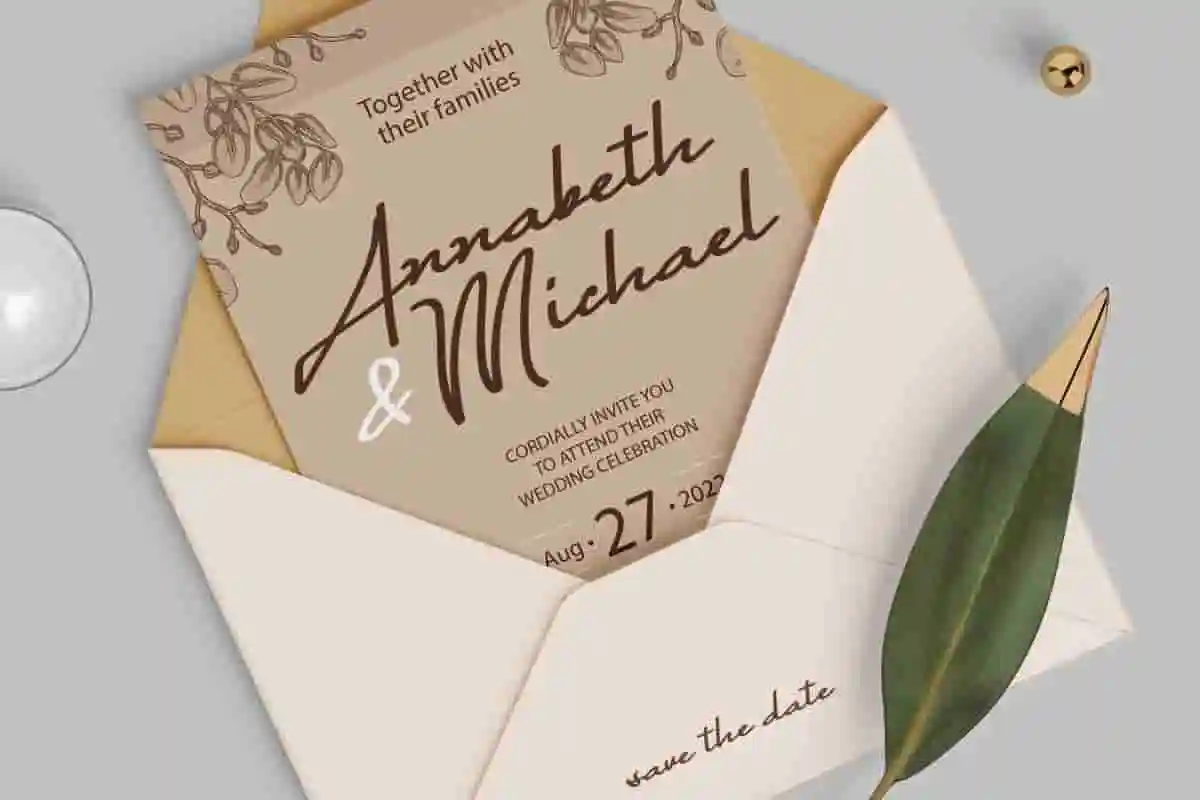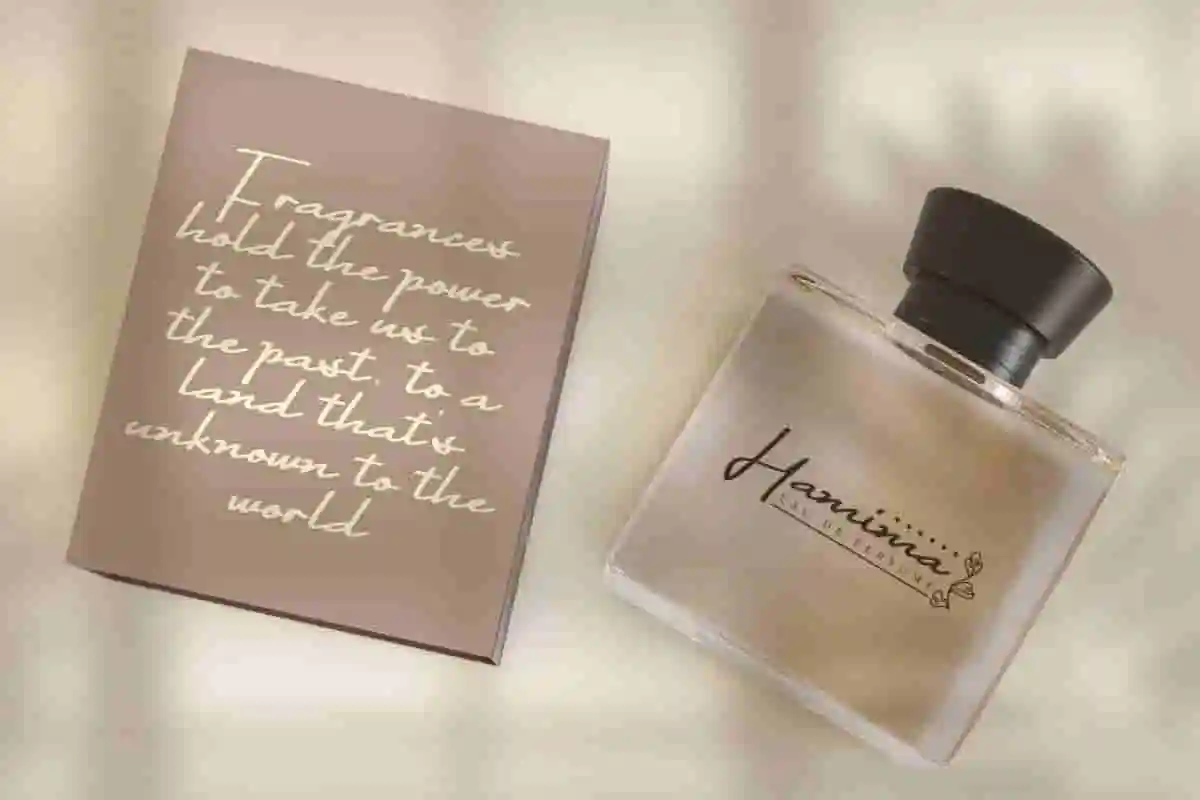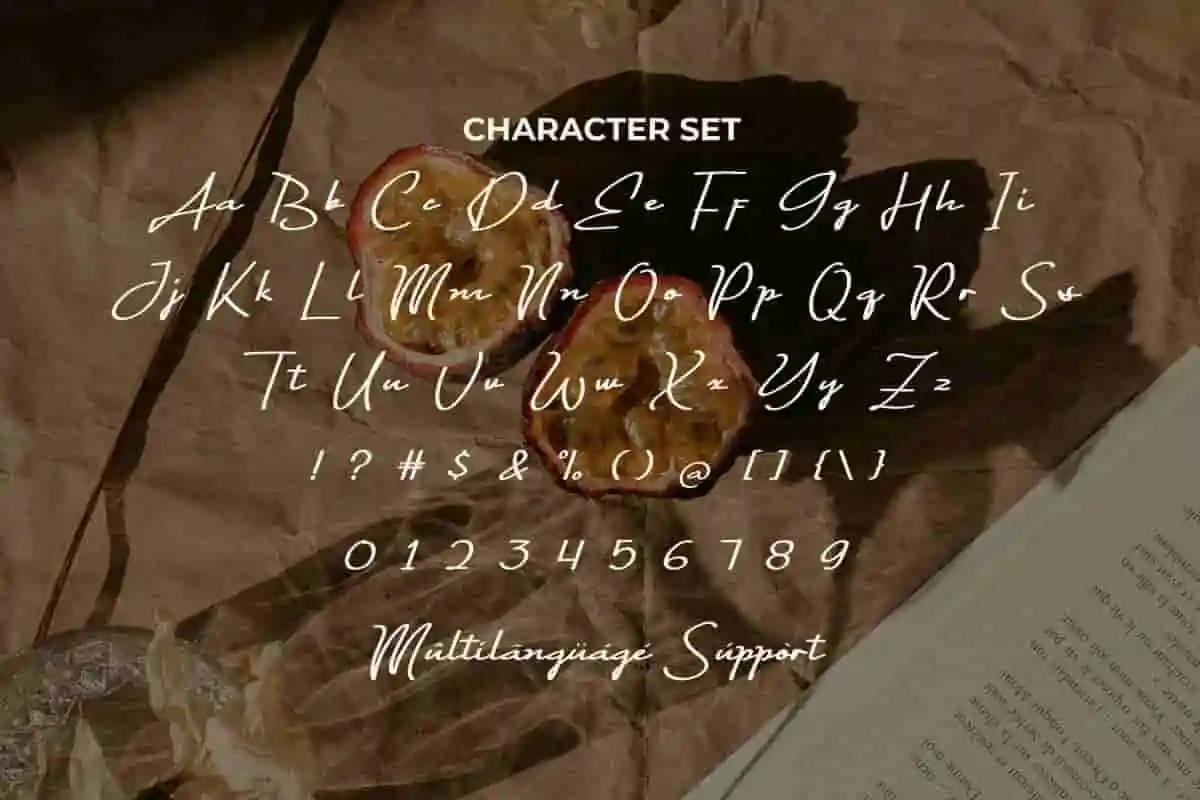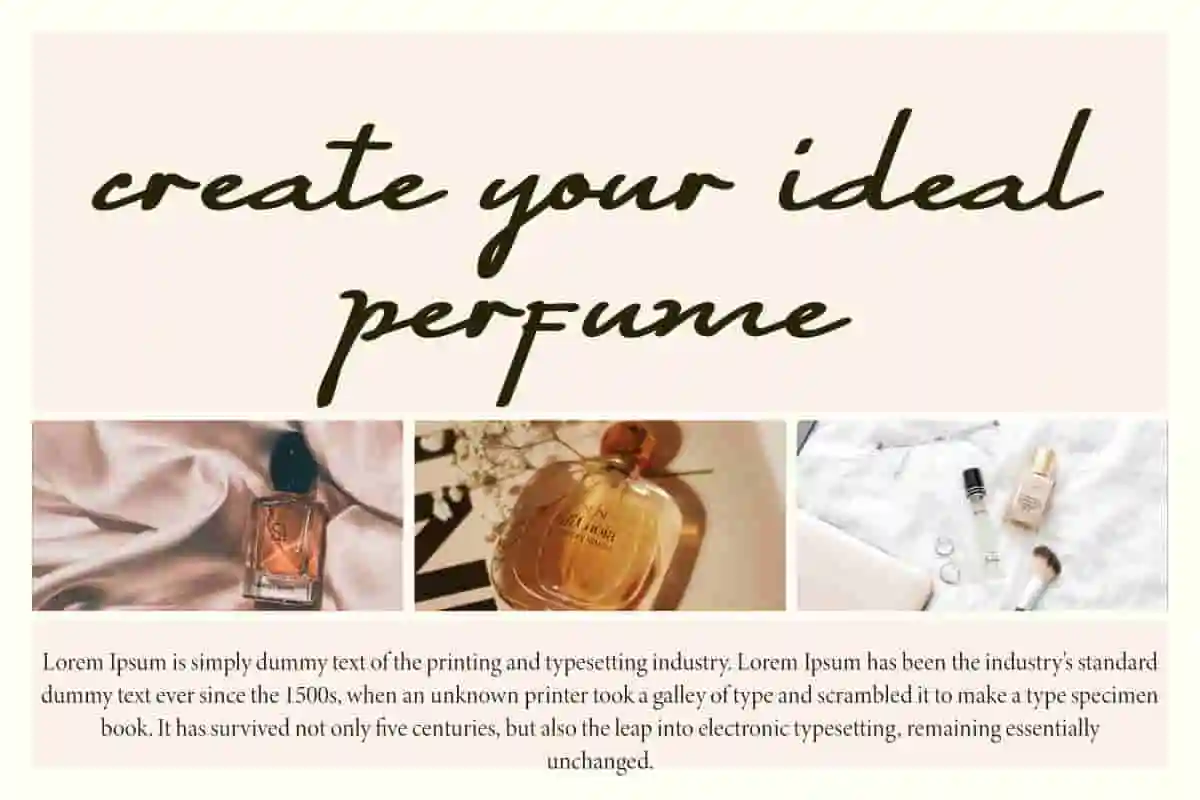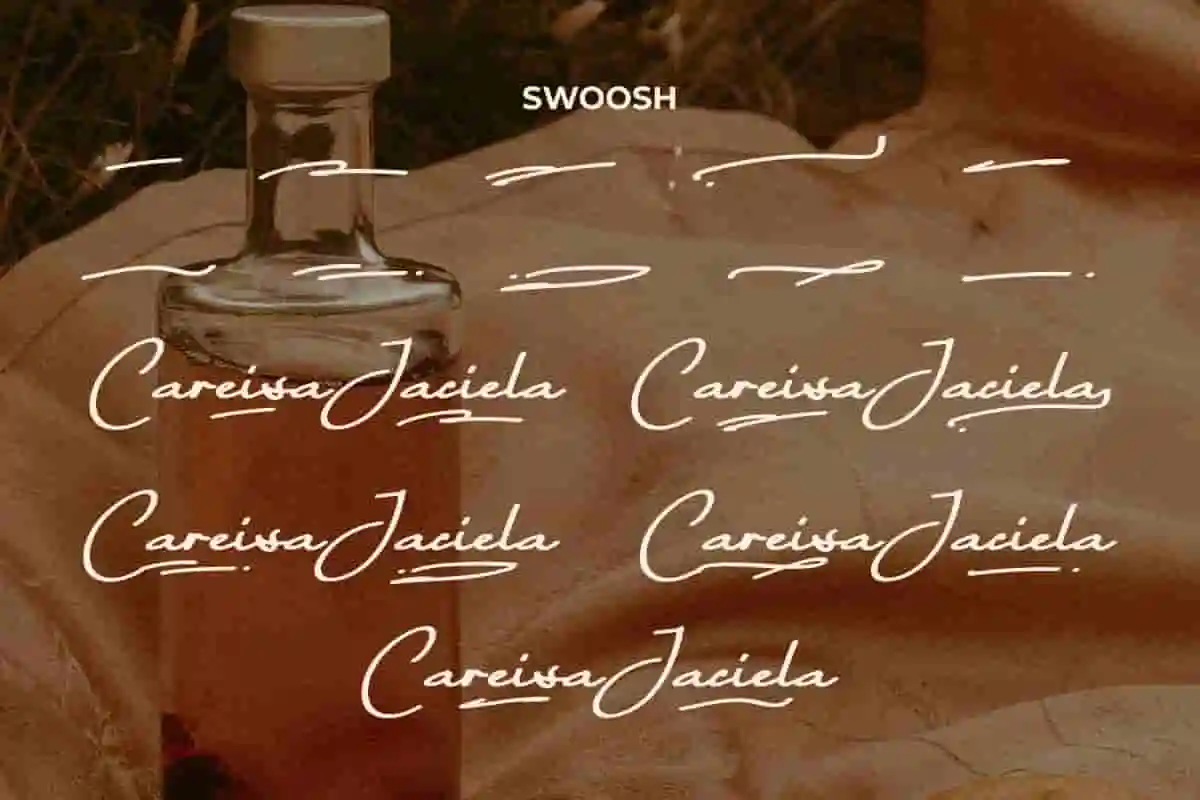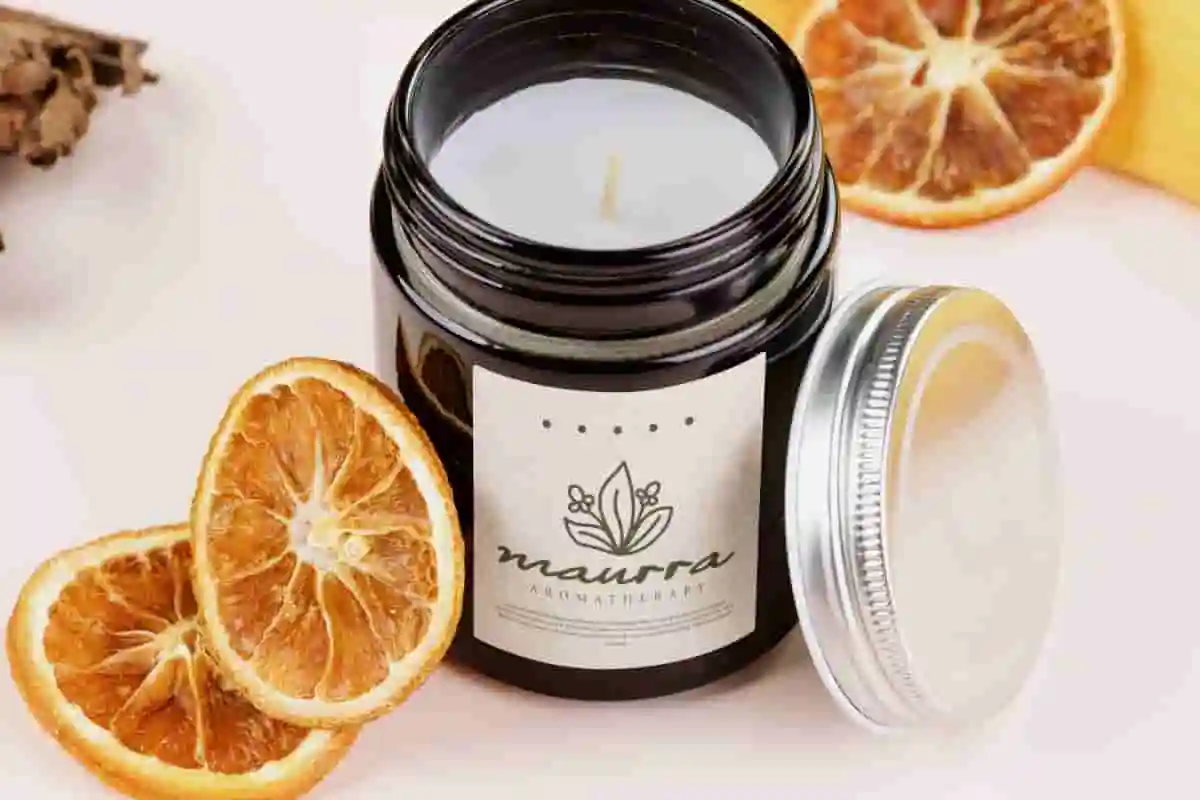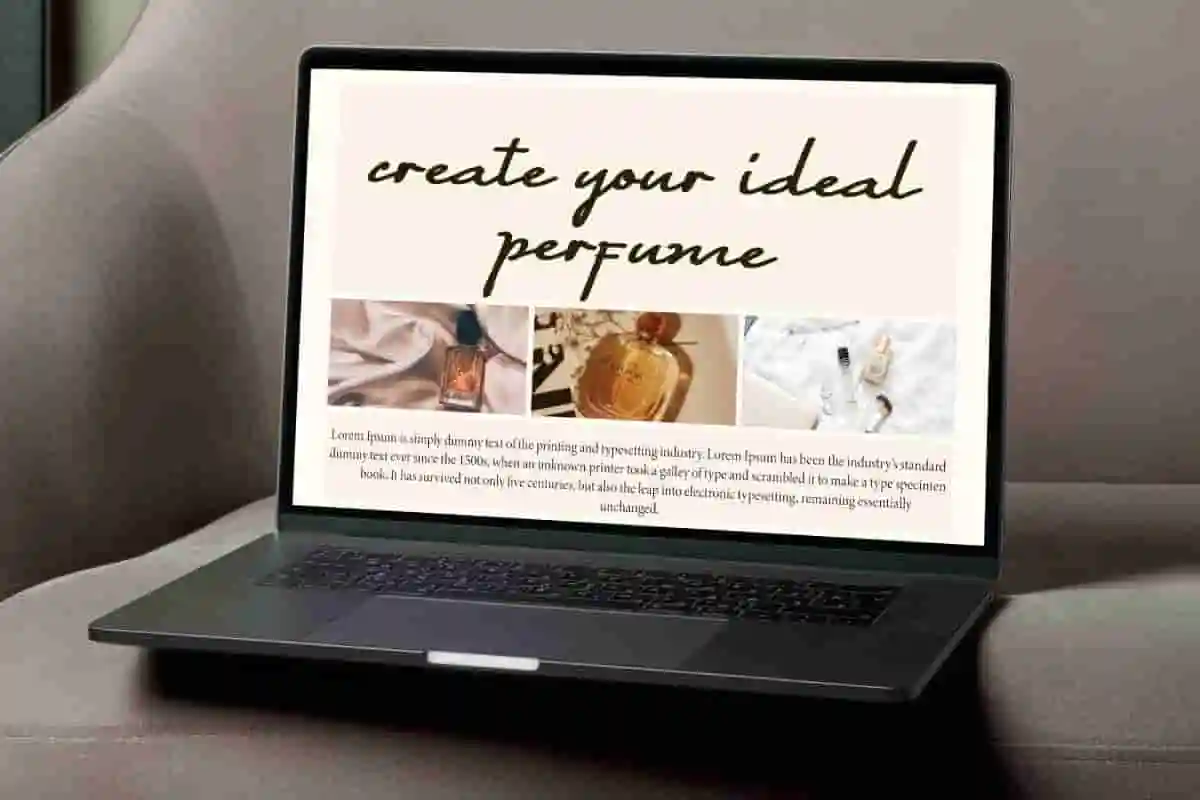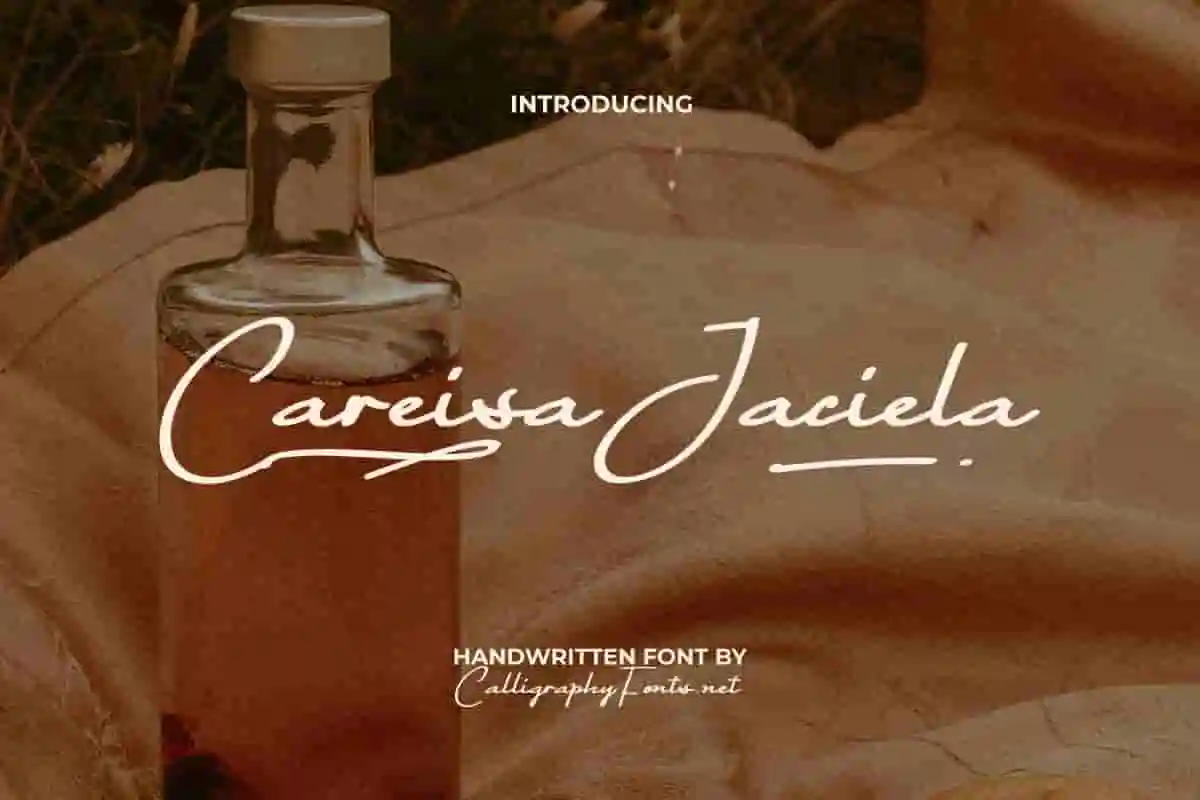
Careisa Jaciela Font
Careisa Jaciela Font is a stunning natural handwritten font with an equally attractive swoosh added. It will make your designs even more amazing and is ideal for anything
Careisa Jaciela Font is a beautiful handwritten font that has an elegant and neat charm with the addition of a unique swoosh innovation that produces an eye-catching font shape. This font is perfect for apps, blogs, branding logo, brochure, greeting cards, headers, headline, invitation, labels, logo, mockup, packaging, poster, printed materials, quotes, stickers, template, title, watermarks, websites, and others.
Bring a touch of elegance and beauty to your creative projects with Careisa Jaciela Handwriting Font, a modern script typeface designed to capture romance, sophistication, and style. With its graceful curves, smooth strokes, and delicate swashes, this font brings the charm of handwritten calligraphy into every design.
Perfect for wedding invitations, event stationery, luxury branding, packaging, logos, greeting cards, and social media content, Careisa Jaciela Handwriting Font adapts effortlessly to both personal and professional projects. Each character is carefully crafted to balance artistry with readability, ensuring your designs remain stylish and clear.
Careisa Jaciela Handwriting Font is a casual handwritten font that is made more modern and feminine. It is perfectly crafted in aesthetic elegance and is designed to be easily paired with a variety of fonts. This typeface works great for advertising, event organizer, perfume store, photography, publishing, scented candle retail, writer, wedding, etc.